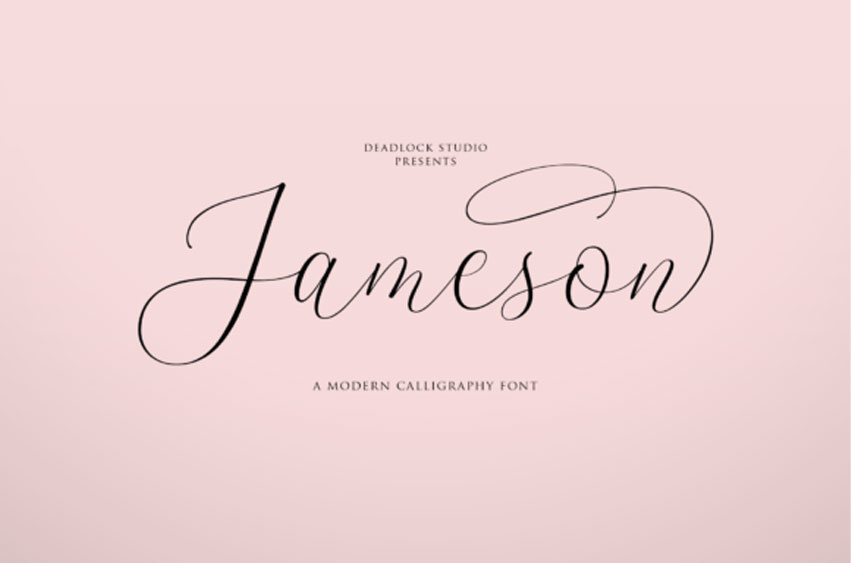
Jameson Font is a uniquely captivating modern calligraphy font designed to bring a touch of elegance and charm to your projects. With its fluid strokes and playful curves, Jameson is perfect for adding a personalized feel to any design.
This font boasts an impressive 325 Characters and a wide array of alternate characters, Ligatures, and Swashes. Providing endless creative possibilities and seamless lettering combinations. Whether you’re working on invitations, branding, posters, or digital content, Jameson offers versatility and style that will make your text stand out.